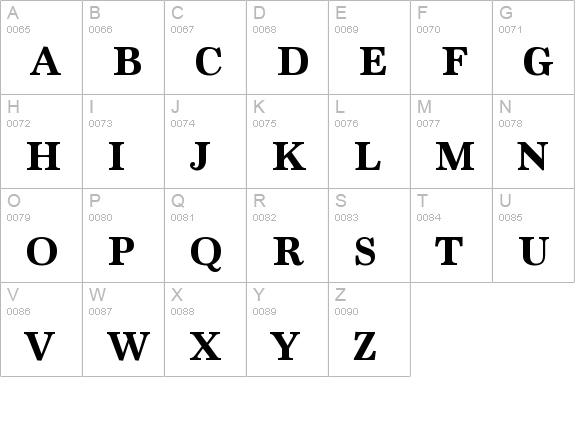
Marion Bold is a strong, high-contrast variant in the Marion typeface family \xE2\x80\x94 well suited to headlines, attention-grabbing titles, and strong calls-to-action.
Introducing Marion Bold font, a sleek and modern typeface that exudes confidence and sophistication. With its bold and commanding presence, Marion Bold font is perfect for making a statement in your design projects. The sturdy and eye-catching letterforms of Marion Bold font make it ideal for headlines, titles, and branding materials. What sets Marion Bold font apart is not only its striking appearance but also its versatility. Whether you're working on a poster, website, logo, or other creative project, Marion Bold font will surely make a lasting impression. Its clean lines and bold strokes ensure that your message is delivered with impact. The best part? Marion Bold font is free to download at FontsMarket.com. That's right, you can get your hands on this premium font without spending a dime. So why wait? Add Marion Bold font to your font collection today and elevate your designs to the next level.